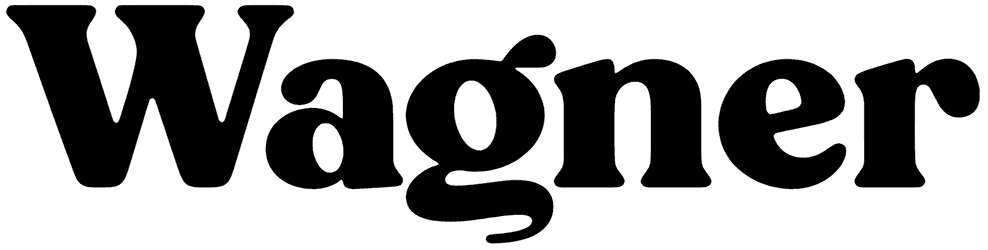
NT Wagner Font
Bring creativity to your typography design with a professional serif font like NT Wagner, conveying both a modern and retro sense through its curly and rounded letterform. In the company of traditional chunky characters, it can show off its best in inventing posters, headlines, greeting cards, music covers, and other printed text.
Moreover, the complete alphabet sets can work nicely to stimulate all designers and users to pick them in keeping the classic sense alive in their assignments.
“NT Wagner” is a modern soft retro serif typeface. This font needs to be in your collection and is perfect for your next design project.
“NT Wagner” will perfect for many project: invitations, postcards, posters, book covers, advertisements, website headers, logos, magazines, fashion, branding, photography etc.